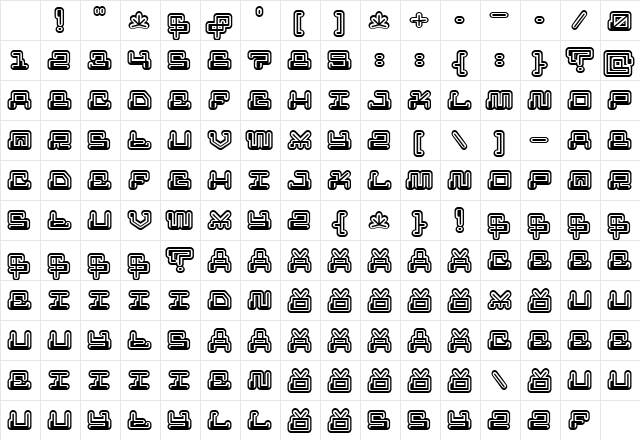
Complete MR FUGLESANG REMIX Regular glyph index. Displaying only characters natively supported by MR FUGLESANG REMIX Regular font.
MR FUGLESANG REMIX is a composed and adaptable typeface that performs quietly and consistently across a wide range of design contexts.